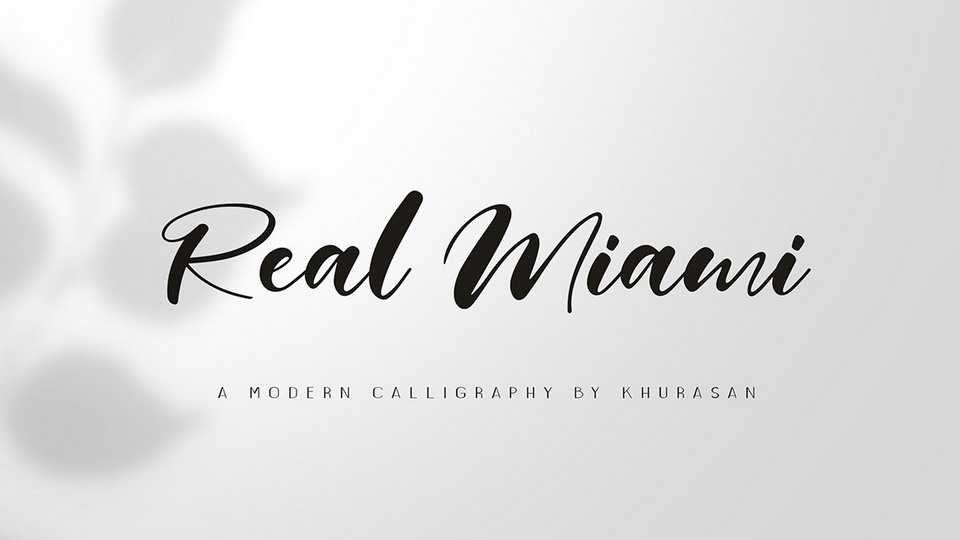
Download Real Miami font, a bold hadwritten brush script with a fresh & modern style. It contains a full glyph set, ligatures, alternates, multilingual support. Real Miami Script font is suitable for logo, branding, greeting card, poster and any design that you create.